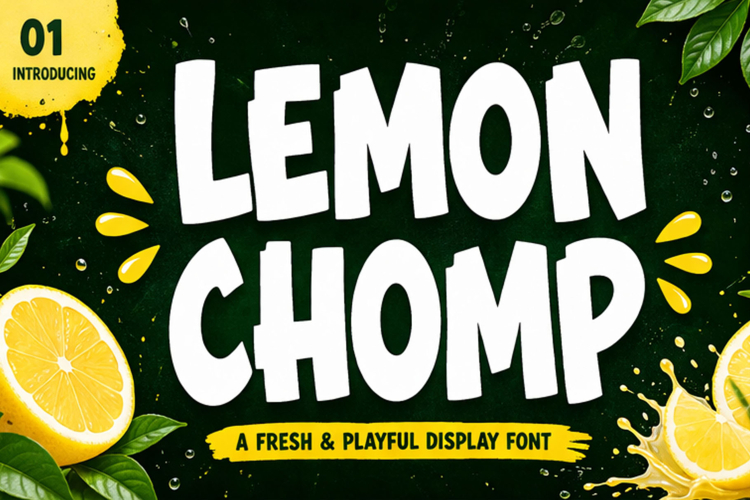
Lemon Chomp | Fresh and Playful Display Font
Introducing Lemon Chomp, a fresh and playful display font bursting with cheerful energy, juicy character, and fun typography vibes. Inspired by fruity aesthetics, hand-crafted cartoon lettering, and modern playful branding, Lemon Chomp delivers bold visual impact with a lighthearted personality perfect for creative and colorful projects.
Featuring chunky letterforms, organic curves, and an energetic handmade feel, Lemon Chomp creates typography that feels friendly, vibrant, and highly expressive. The font combines bold readability with playful shapes, making it ideal for eye-catching headlines, branding, packaging, posters, children-themed visuals, food graphics, and social media content.
Lemon Chomp was designed to bring positive and refreshing visual atmosphere into typography compositions. Its lively character shapes and soft rounded edges create a modern playful style suitable for contemporary branding and creative display design.
The bold display structure ensures excellent readability while maintaining unique playful personality. Whether used in colorful layouts or minimalist compositions, Lemon Chomp instantly creates cheerful visual energy that captures attention.
Features- Uppercase Characters
- Lowercase Characters
- Numbers & Punctuation
- Playful Display Style
- Chunky Letterforms
- Fresh Modern Character
- Fun Typography Aesthetic
- Bold Readability
- Organic Handcrafted Shapes
The playful curves and expressive proportions make Lemon Chomp suitable for modern creative projects that require approachable and memorable typography. Its lively structure gives every word a sense of movement and fun while remaining clean and highly readable.
Inspired by fruity branding aesthetics, modern cartoon typography, playful packaging design, and cheerful creative culture, Lemon Chomp transforms ordinary text into vibrant display compositions with energetic personality.
The multilingual support expands design flexibility across different languages, while numbers and punctuation help complete professional typography systems for branding and promotional use.
Lemon Chomp works especially well in bold oversized headlines, colorful advertisements, packaging design, playful logos, and creative merchandise. The font creates strong visual identity with friendly and approachable charm.
Suitable for creators looking for typography filled with freshness, fun, and modern playful aesthetics, Lemon Chomp delivers cheerful display typography with strong visual impact and memorable character.